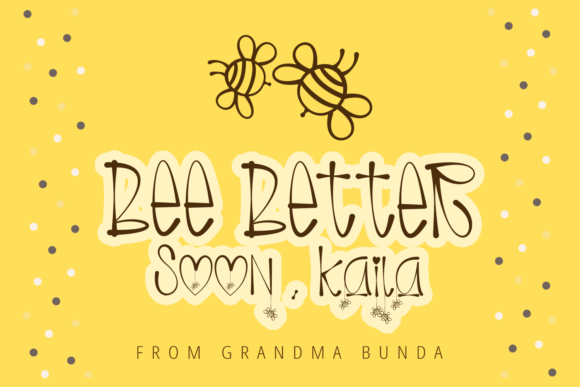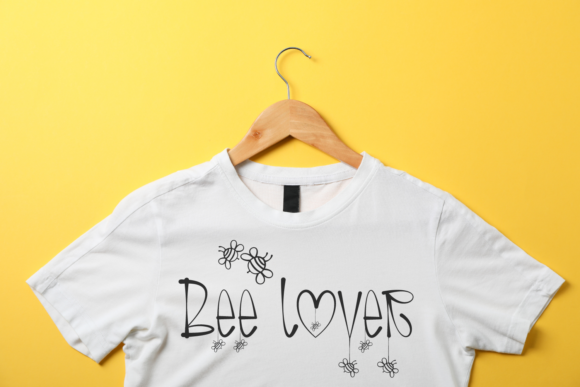
Bee Darling Font
db-ku.com - Script & Handwritten -- Bee Darling is a quirky, fun and jolly handwritten font. Whether you use it for cartoon related designs, children games or just any creation that requires a lovely touch, this font will be an amazing choice.